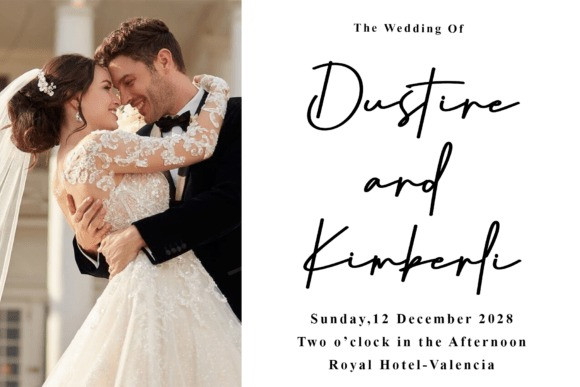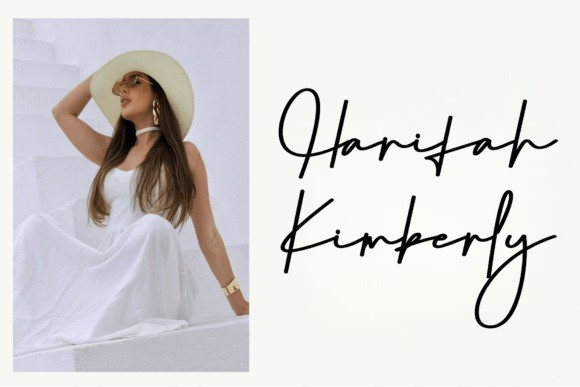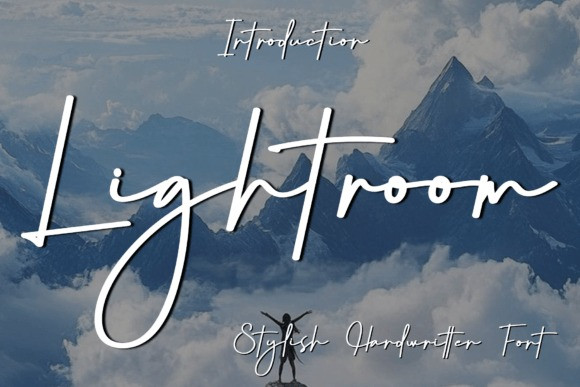
Lightroom Handwriting Font
Lightroom Handwriting Font is a smooth and elegant modern handwritten font that balances legibility with a stylish, personal flair. Its consistent, fluid strokes and slightly condensed form create a graceful, feminine look that is both unique and professional.
This versatile typeface is perfect for sophisticated personal branding, chic social media graphics, custom stationery, and any design that requires a neat, flowing, and contemporary signature style.